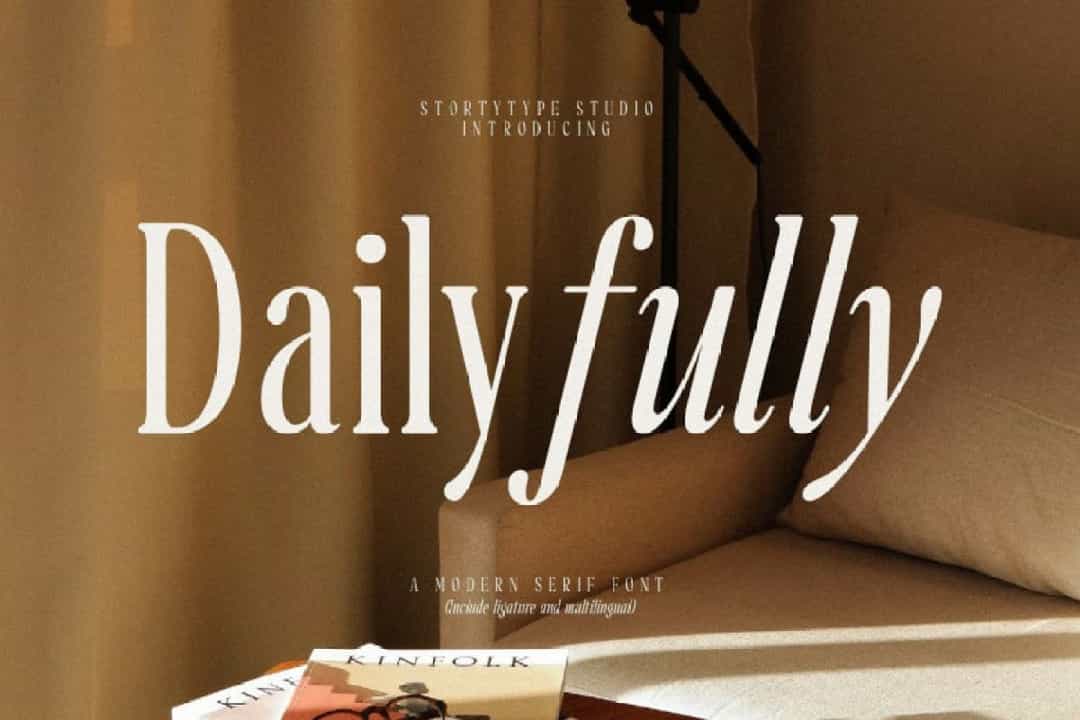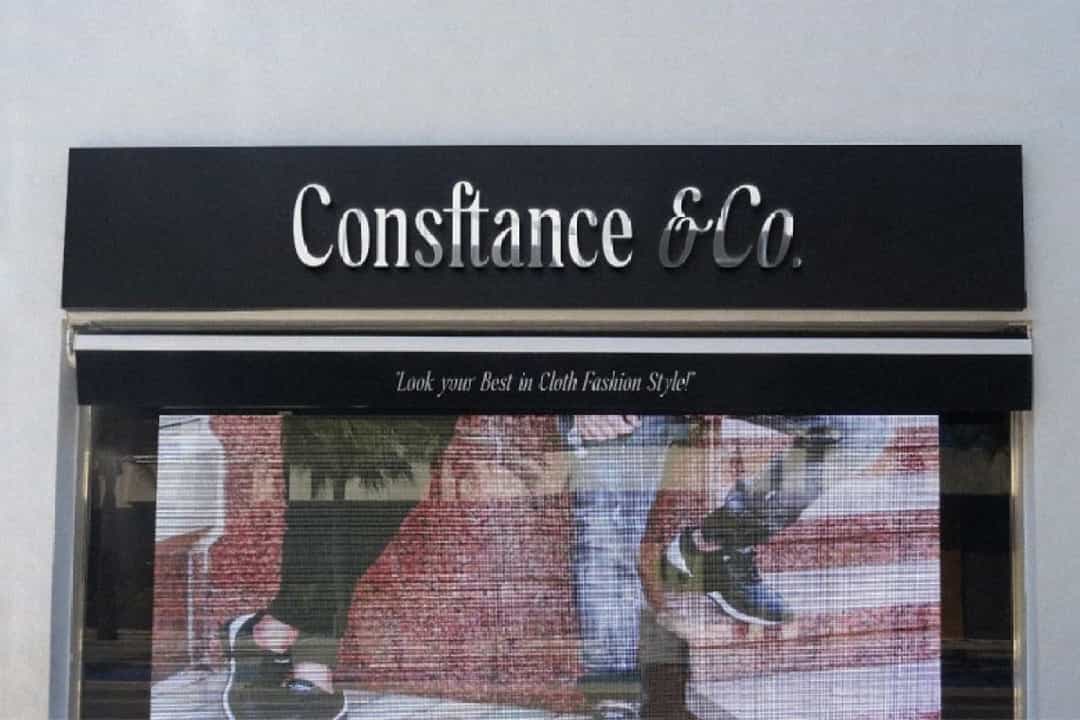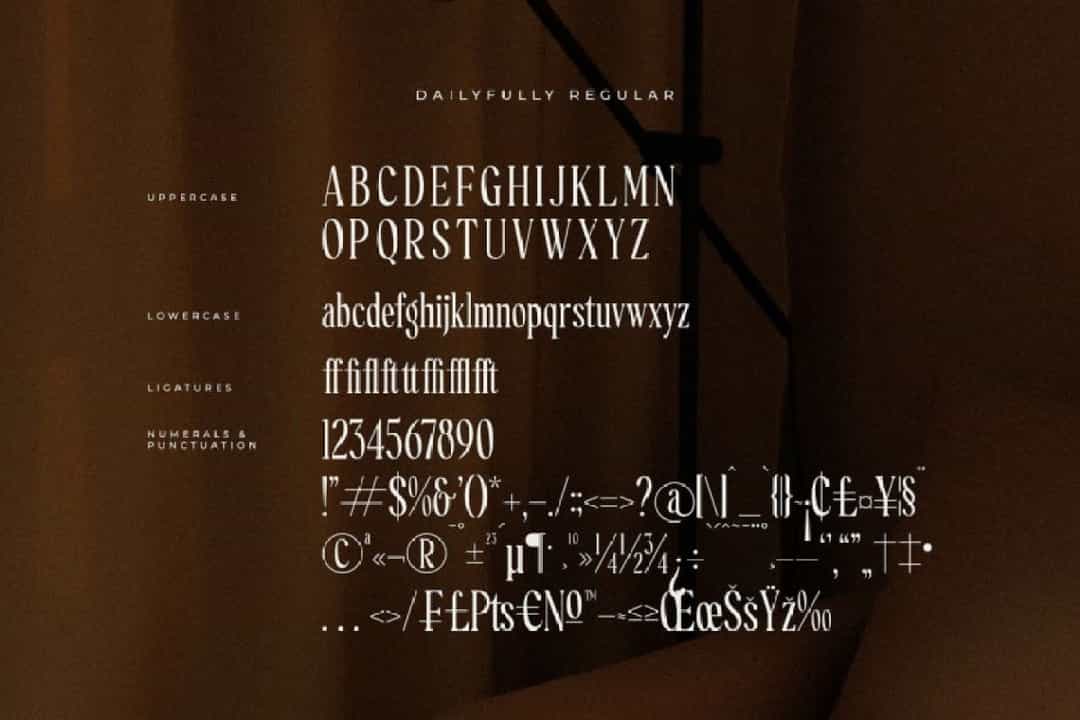
Storytype’s Dailyfully Font is an elegant and modern serif typeface perfect for creating luxurious logos, movie titles, book covers, fashion clothing lines, magazine letters and quotes among many other uses.